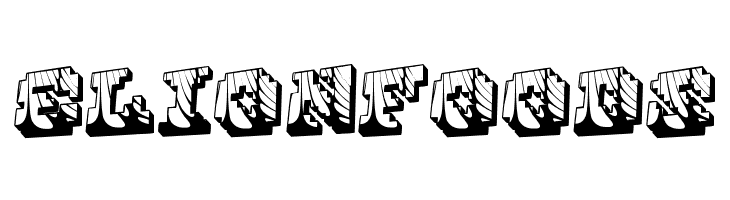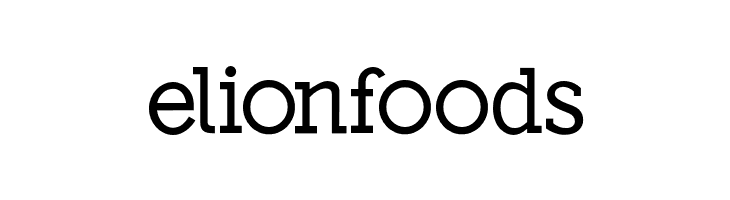
An elegant script font with flowing, connected characters and ornate flourishes.
A bold, playful font with thick, rounded strokes and a whimsical style.
A bold, stencil-style font with a strong, industrial look.
A sleek, geometric font with thin, uniform strokes and a modern aesthetic.
A modern, geometric font with clean lines and consistent stroke width.
A sleek, modern italic font with geometric precision and bold weight.
A modern, italic font with smooth, continuous strokes and a dynamic appearance.
A sleek, modern font with geometric, thin lines and rounded edges.
A modern, geometric sans-serif font with a sleek and minimalist design.
A modern, bold, italic sans-serif font with a sleek and dynamic style.
A sleek, modern italic font with clean lines and geometric shapes.
A bold, decorative font with a vintage halftone texture.
A modern, geometric font with clean lines and a minimalist aesthetic.
A bold, distressed font with a textured, vintage appearance.
A bold, decorative font with a textured, vein-like pattern.
A bold, decorative font with swirling embellishments and a strong visual impact.
A bold, textured font with a graffiti-inspired style.
Casual handwritten font with brush-like strokes.
A bold, geometric font with rounded edges and a modern, industrial style.
A bold, geometric typeface with a modern and commanding presence.
A bold, distressed font with a hand-drawn, grunge aesthetic.
A bold, distressed font with a rugged, grunge aesthetic.
A playful, hand-drawn font with irregular, whimsical characters.
A bold, hand-drawn font with jagged, edgy outlines.
A bold, distressed font with a rugged, vintage appearance.
A modern, high-contrast font with elegant serifs and geometric influences.
A gothic, dramatic font with sharp serifs and elongated strokes.
A bold, distressed font with a grunge texture and star motifs, ideal for edgy designs.
An elegant, flowing script font with smooth, continuous strokes.
A lively and flowing script font with elegant curves and smooth connections.
A playful, hand-drawn font with a casual and informal style.